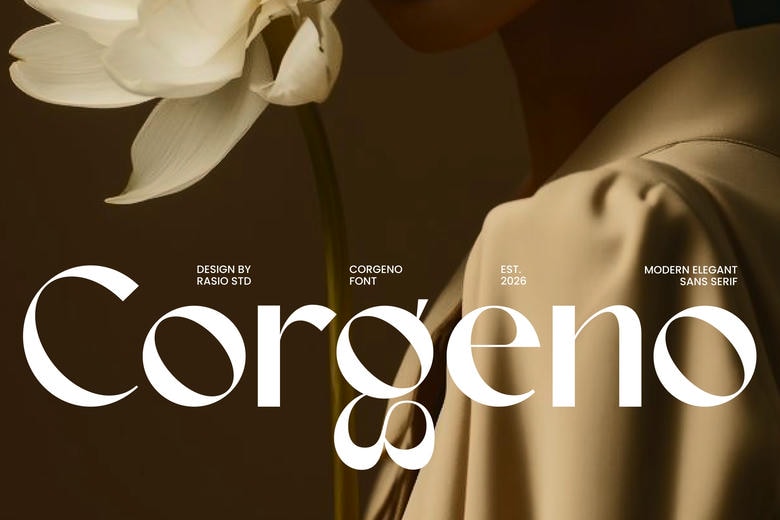
Corgeno Font
Corgeno is a modern sans serif typeface with a geometric design, smooth curves, and distinctive letterforms inspired by editorial styles. Its balanced shapes, clear strokes, and open forms create a polished look that is both minimal and refined.
Corgeno Sans Serif Font